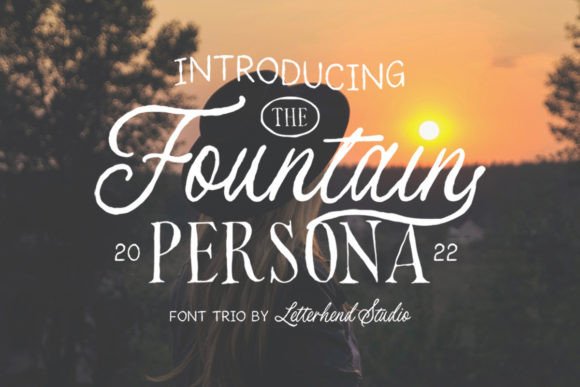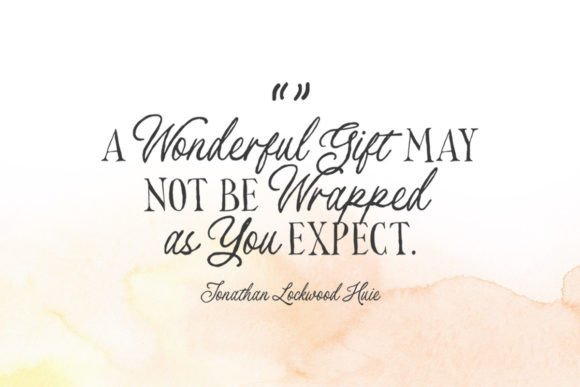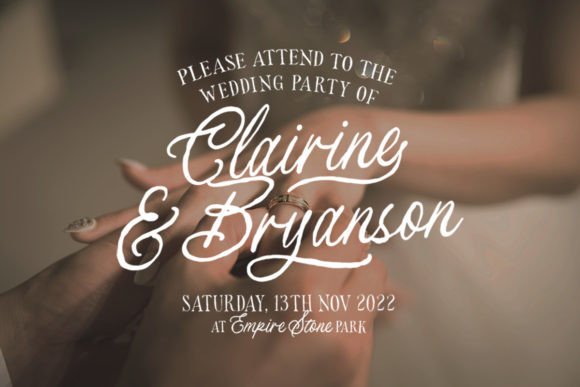
About Fountain Persona Trio Font
“Fountain Persona” is a stunning and elegant handwritten font trio that offers a unique and timeless style for your design projects. This font trio is versatile and can be used to create a wide range of designs, adding a touch of sophistication and distinctiveness to your creations. Whether you’re working on branding, invitations, packaging, or any other creative endeavor, “Fountain Persona” has the potential to make your designs truly spectacular.
The appeal of “Fountain Persona” lies in its ability to convey a sense of elegance and individuality. The three distinct fonts within this trio offer a variety of styles and options for your text. Each font features meticulously crafted letterforms that create a visually captivating and refined aesthetic. This font trio seamlessly integrates into various design projects, allowing you to experiment with different looks and moods.
One of the standout features of “Fountain Persona” is its adaptability. You can mix and match the fonts within the trio to suit your design needs, making it a versatile asset for creative work. The fonts’ stunning and elegant appearances add a sense of luxury and sophistication to your text.
When you incorporate “Fountain Persona” into your designs, you can expect your creations to exude a sense of refinement and uniqueness. This font trio has the power to make your designs stand out and leave a lasting impression on your audience.
In summary, “Fountain Persona” is more than just a font; it’s a design asset that can elevate your creative projects with its stunning and elegant handwritten styles. Its versatility and timeless appeal make it a valuable addition to your design toolkit. You can confidently use “Fountain Persona” to add a touch of luxury and distinctiveness to a wide range of design projects, as it has the potential to make your designs truly spectacular!